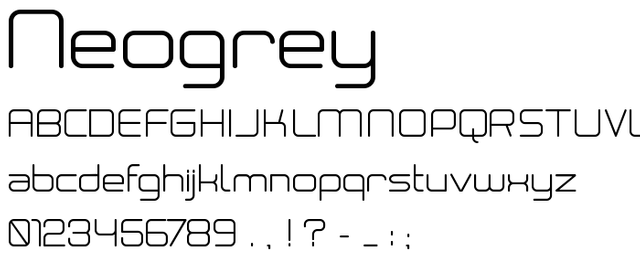
Japanese typeface
I bought a dictionary about Japanese fonts.
It is described a lot of Japanese fonts and I want to know it more and more. My favorite font in this dictionary is “A1 mincho-typeface”
It is one of the most famous font and It used title of Kiminonaha(your name). I want to use this font but  I cannot use this font without my university because it cost some money... I want to buy it.
It is another my favorite font. Its name is Chikushi mincho-typeface. It made by Fujita Shigenobu who is font designer. I like round element(uroko) .
I like Chikushi mincho-typeface!!
When I use a word upplication, I want to use that!!
Good! I recommend you to use this type-face:)
Oh!!! I like Font too!!
My recomend font is "Neogrey"!! Neogrey.otf.png
It lokks so cool font! Is it free?
My favorite font is babipop.
Do you know?
I don't know it... I'll look it up it!